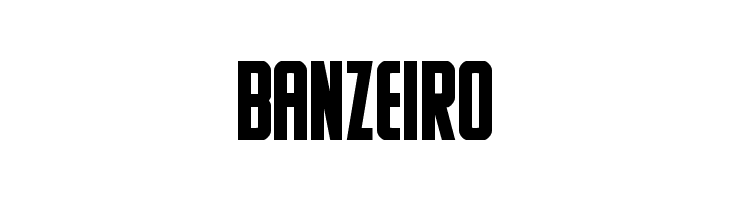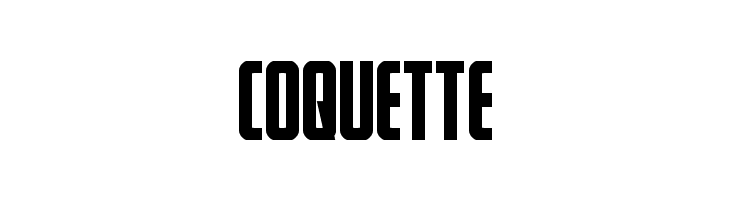
• Warownia Bold Narrow
A bold, narrow typeface with strong lines and a modern aesthetic.
Warownia Bold Narrow  Free Fonts Download
A bold, playful font with a modern and decorative style.
• Waukegan LDO Bold
( Fonts by Luke Owens - Personal-use only. For commercial use please contact owner. )
A bold, modern sans-serif font with geometric shapes and clean lines.
• Waukegan LDO Bold Oblique
( Fonts by Luke Owens - Personal-use only. For commercial use please contact owner. )
A bold, oblique font with a modern and dynamic style.